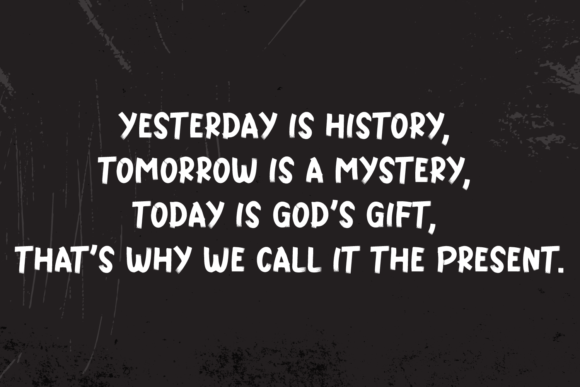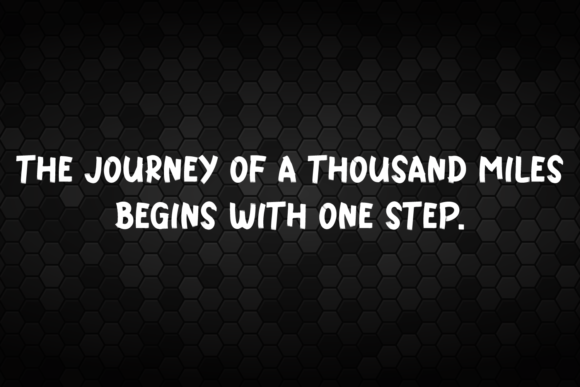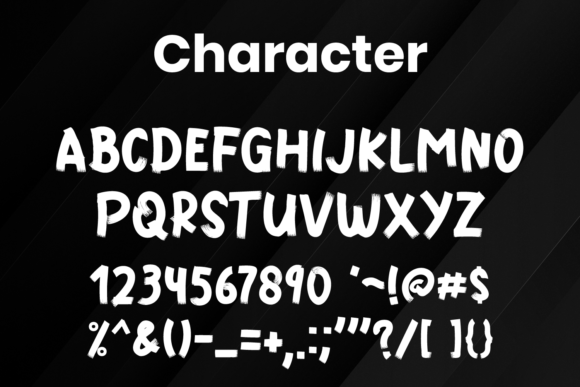
Introducing Fall Kingdom Font: The Perfect Choice for Playful and Creative Projects
Are you looking for a font that embodies playfulness and authenticity? Look no further than Fall Kingdom Font, a cute and friendly brush style handwritten font that’s perfect for any children activity or school project. In this article, we’ll dive into the world of Fall Kingdom Font and explore its features, benefits, and uses.
What is Fall Kingdom Font?
Fall Kingdom Font is a unique and charming brush script font that’s designed to bring a touch of playfulness and whimsy to your designs. With its hand-painted feel and irregular strokes, this font is perfect for creating eye-catching and engaging content for kids. Whether you’re working on a children’s book, a school project, or a craft, Fall Kingdom Font is sure to add a personal touch that’s both fun and educational.
Key Features of Fall Kingdom Font
- Cute and Friendly Design: Fall Kingdom Font features a cute and friendly design that’s perfect for kids. Its playful and approachable style makes it ideal for children’s activities, school projects, and crafts.
- Brush Style Handwritten Font: This font has a beautiful brush style handwritten feel that’s both authentic and engaging. Its irregular strokes and hand-painted texture give it a unique and personalized look.
- Playful and Whimsical: Fall Kingdom Font is designed to be playful and whimsical, making it perfect for projects that require a touch of fun and creativity.
- Easy to Read: Despite its playful design, Fall Kingdom Font is easy to read and understand, making it perfect for use in educational materials and children’s books.
Benefits of Using Fall Kingdom Font
So why choose Fall Kingdom Font for your next project? Here are just a few benefits of using this amazing font:
- Adds a Personal Touch: Fall Kingdom Font adds a personal touch to your designs that’s both fun and engaging. Its hand-painted feel and irregular strokes make it perfect for creating unique and eye-catching content.
- Perfect for Kids: This font is specifically designed for kids, making it perfect for children’s activities, school projects, and crafts.
- Versatile: Fall Kingdom Font is versatile and can be used for a wide range of projects, from children’s books to craft tutorials.
Uses of Fall Kingdom Font
So what can you use Fall Kingdom Font for? Here are just a few ideas to get you started:
- Children’s Books: Fall Kingdom Font is perfect for creating engaging and interactive children’s books that kids will love.
- School Projects: This font is great for school projects, such as posters, presentations, and reports.
- Crafts: Fall Kingdom Font is perfect for craft tutorials, DIY projects, and handmade cards.
- Party Invitations: Use this font to create fun and playful party invitations that kids will love.
Tips for Using Fall Kingdom Font
Here are a few tips for using Fall Kingdom Font:
- Use it with Color: Fall Kingdom Font looks great with bright and bold colors, so don’t be afraid to get creative with your design.
- Experiment with Sizes: This font looks great in a variety of sizes, from large headings to smaller body text.
- Pair it with Other Fonts: Fall Kingdom Font pairs well with other fonts, such as sans serif fonts and script fonts.
In conclusion, Fall Kingdom Font is a unique and charming brush script font that’s perfect for any children activity or school project. Its cute and friendly design, playful and whimsical style, and easy-to-read format make it a great choice for designers and crafters. Whether you’re working on a children’s book, a school project, or a craft, Fall Kingdom Font is sure to add a personal touch that’s both fun and engaging.